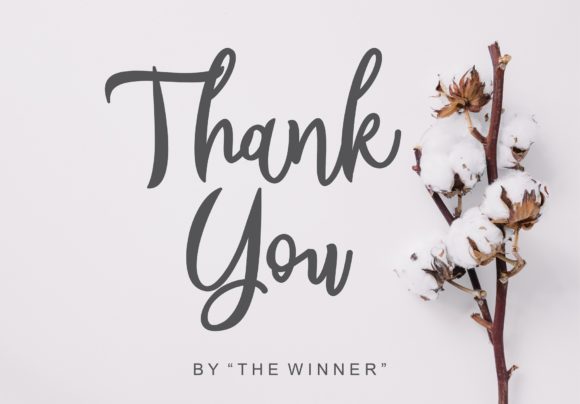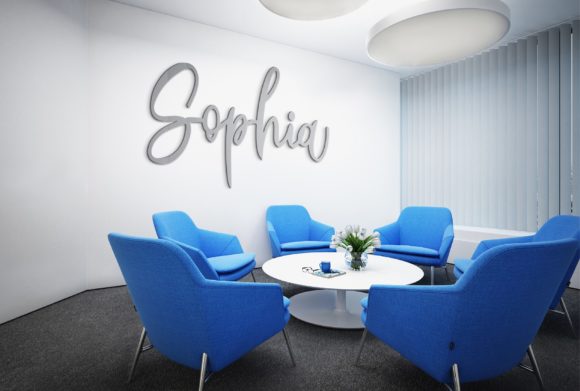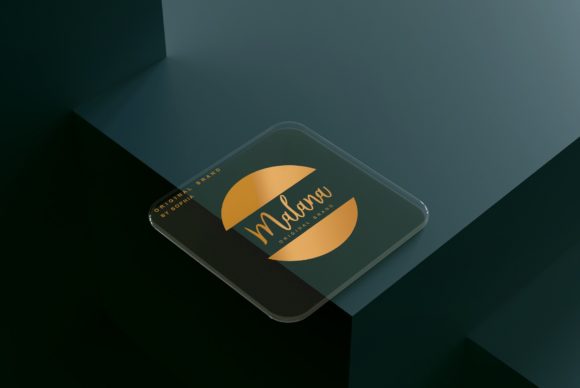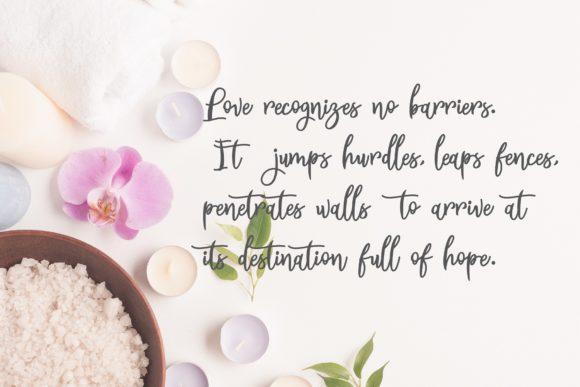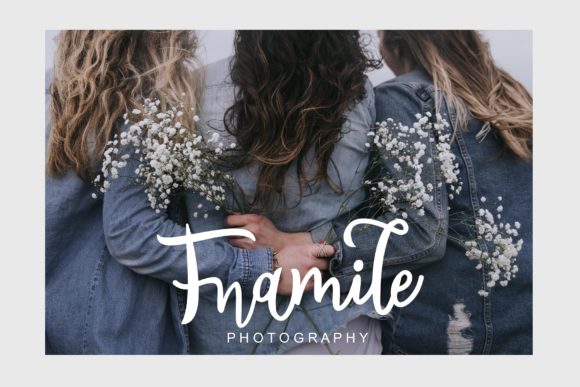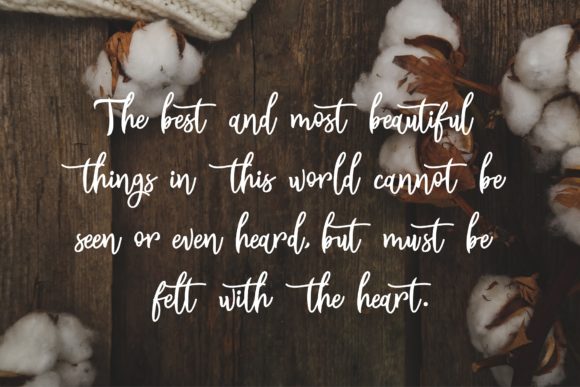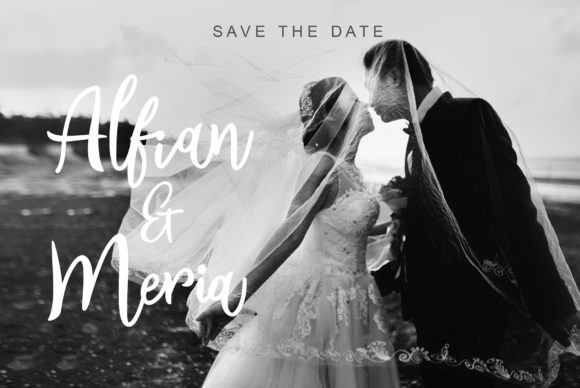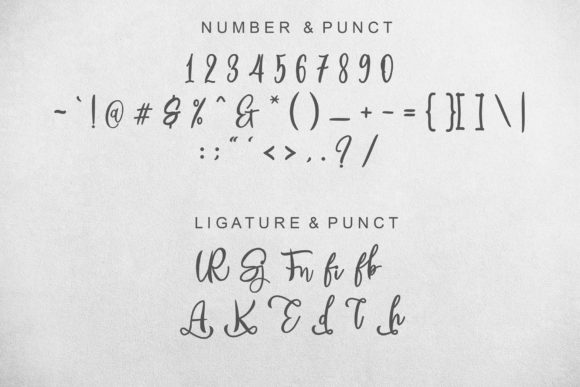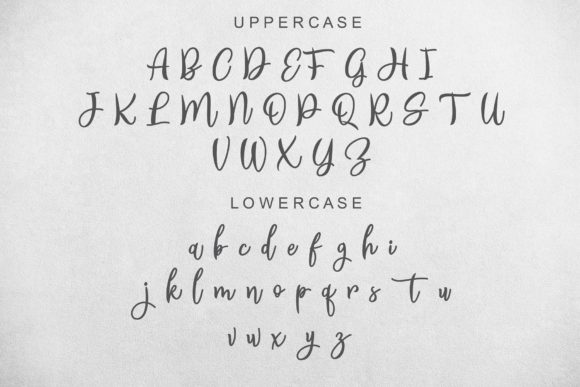
Sophia Font
About Sophia Font
Sophia is a graceful and elegant handwritten font that exudes sophistication and charm. With its timeless appeal, it adds a touch of class to a wide range of designs that require a personalized and refined style. From wedding invitations and thank you cards to logos and branding materials, Sophia is the perfect choice for creating a memorable and exquisite aesthetic.
One of the standout features of Sophia is its graceful letterforms. Each stroke is delicately crafted to create a flowing and elegant look. The letters dance along the baseline, creating a sense of movement and adding a touch of whimsy to your designs. Whether used for headlines, body text, or decorative elements, Sophia captures attention and leaves a lasting impression.
The elegance of Sophia makes it particularly well-suited for special occasions and formal events. Wedding invitations and stationery are the perfect canvas for showcasing the beauty of this font. The refined strokes and intricate details lend an air of romance and sophistication to your wedding-related designs. Additionally, thank you cards and greeting cards become even more heartfelt and personalized when adorned with the graceful touch of Sophia.
Logos and branding materials also benefit from the elegance of Sophia. It adds a sense of professionalism and exclusivity to your brand identity, making it stand out from the competition. Whether you’re creating a luxury brand, a high-end product, or an upscale service, Sophia helps convey a sense of sophistication and refinement that resonates with your target audience.
In addition to its elegance, Sophia offers versatility. It can be adapted to various design styles and contexts, from vintage and classic to modern and contemporary. Its clean and readable letterforms ensure legibility, while its unique characteristics set it apart from other fonts. This versatility allows you to explore different creative directions and create designs that are uniquely tailored to your vision.
To further enhance your design possibilities, Sophia may offer alternate glyphs and ligatures. These additional characters allow for customization and further personalization, enabling you to create truly unique and eye-catching designs.
In summary, Sophia is a graceful and elegant handwritten font that brings a touch of sophistication to your designs. Whether used for wedding invitations, thank you cards, logos, or other personalized projects, Sophia’s timeless appeal and refined aesthetic elevate your designs to new heights. Embrace the elegance of Sophia and create stunning visuals that leave a lasting impression.